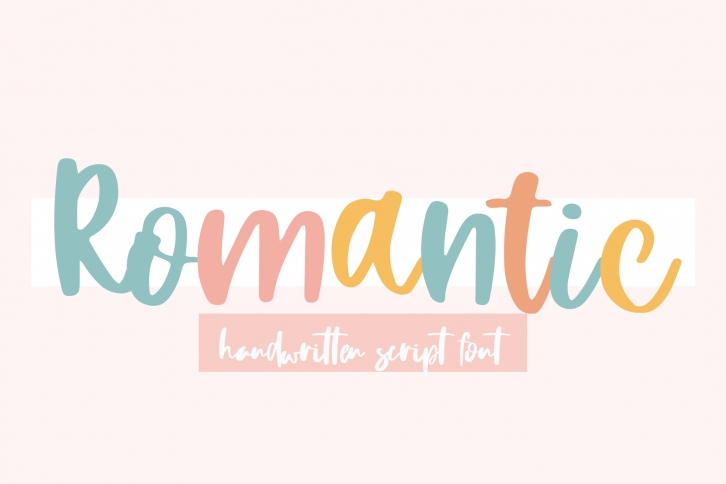
Romantic font is a fresh, modern, stylish, and flowing handwritten font. It has beautiful and well-balanced characters and as a result, it matches a wide pool of designs. It is the best choice for creating eye-catching logos, branding, and quotes. Add it to your most creative ideas, and notice how it makes them come alive!